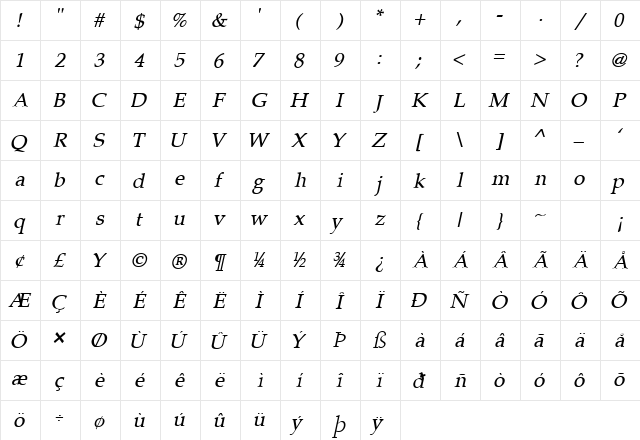
Tavern Italic
Design Context for Tavern Typeface
Tavern offers clean, dependable letterforms without strong stylistic allegiance, making it a practical choice for designers who need flexibility. The slanted form adds forward momentum and visual energy.
Pro Tip: Use Tavern for emphasis, pull quotes, and subheadings where its slanted energy can add rhythm to the layout.